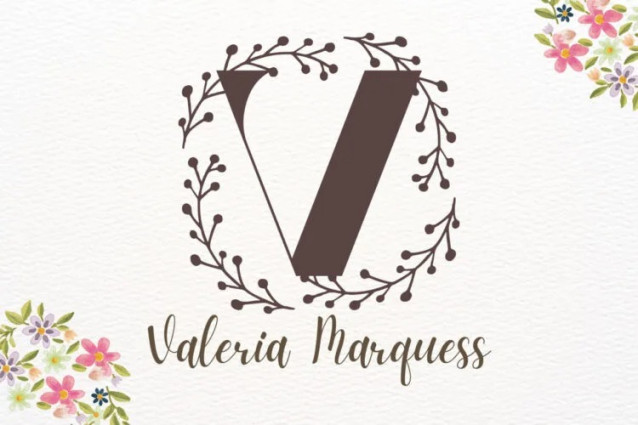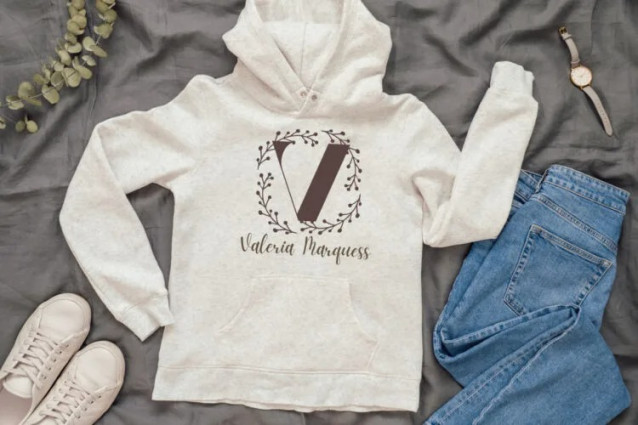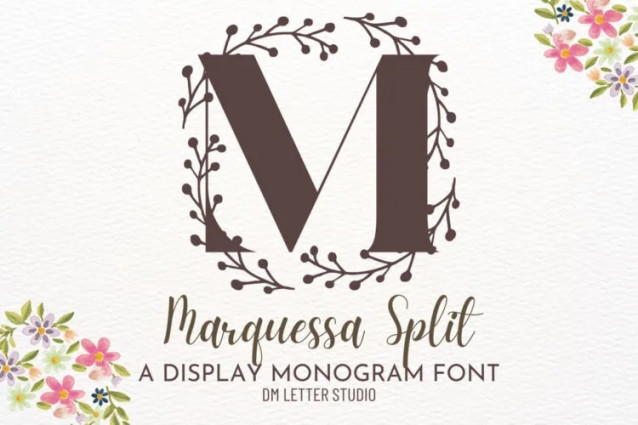
Marquessa Monogram Font
Marquessa Monogram Font turns simple initials into graceful emblems with a refined, boutique feel. Strokes are smooth and balanced. Counters stay open, so tiny tags and foil seals read clearly. Use it for wedding suites, boutique logos, keepsake gifts, and premium packaging. In addition, Marquessa pairs beautifully with modern serifs and quiet sans fonts, which keeps layouts elegant without extra work.
Where the monogram font shines
Set single, double, or triple initials for logos, seals, menus, and place cards. Then frame them with laurel rings, oval borders, or fine rules to echo the poised structure. Since proportions favor symmetry, polished compositions come together in minutes. As a result, thumbnails stand out on crowded marketplaces and listings stay consistent across products. Marquessa also scales smoothly from jewelry cards to venue signage.
Fast setup, polished results
Design tips for Marquessa Monogram
Keep initials large and let white space breathe. Pair the headline monogram with a humanist sans or soft serif for supporting text. Meanwhile, add micro shadows, a thin inner stroke, or a delicate frame for depth. Because the structure is airy, textured papers and metallic accents raise perceived value. However, keep copy short so the monogram remains the hero.